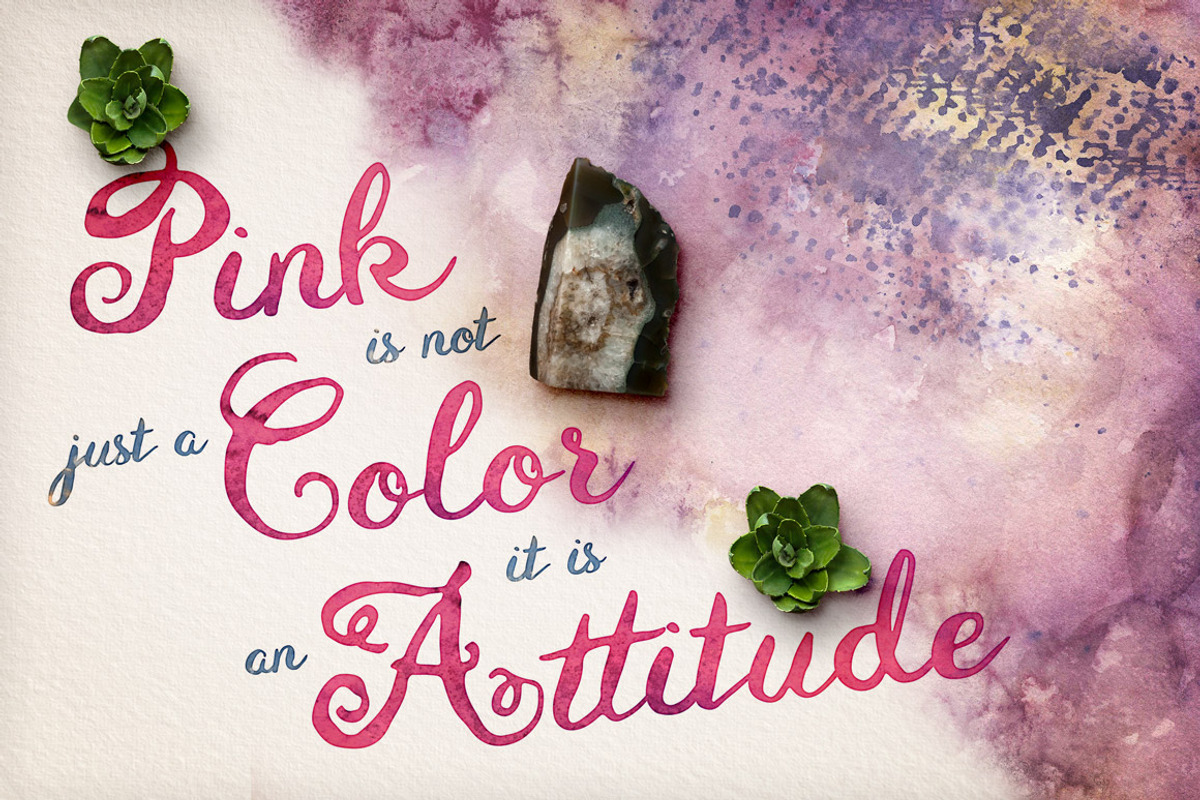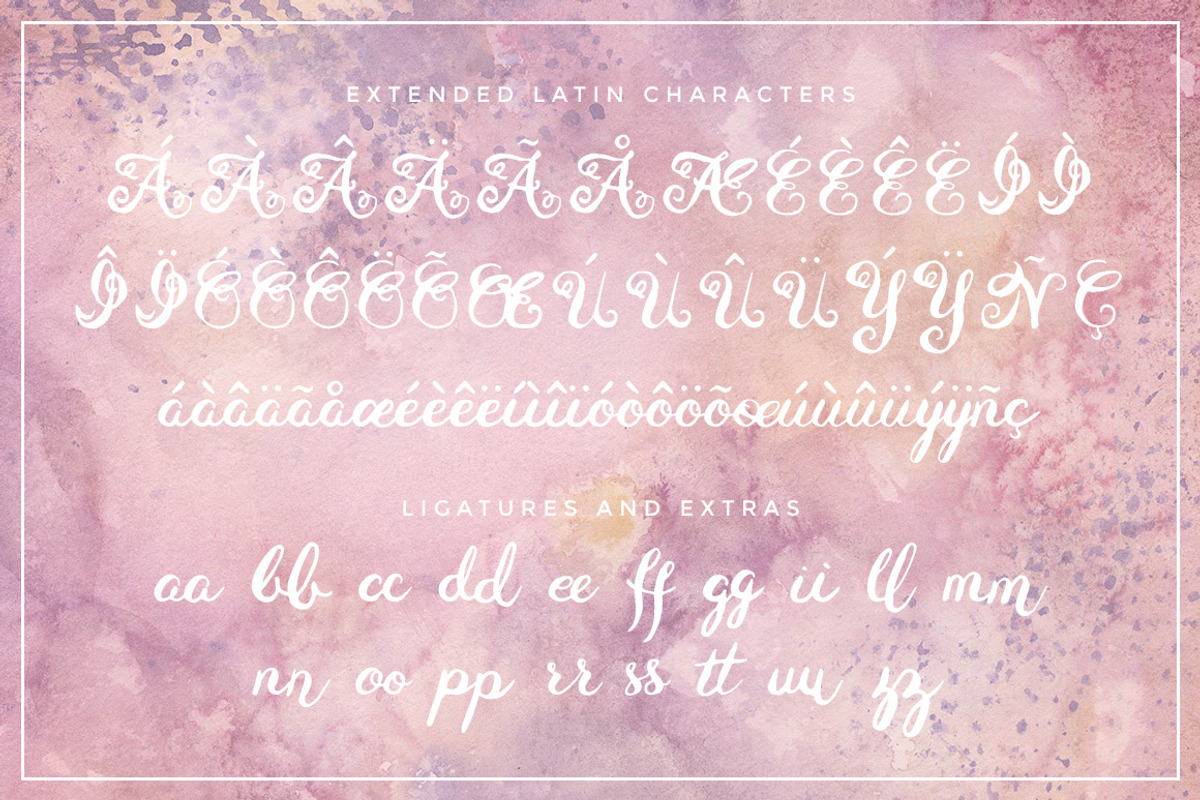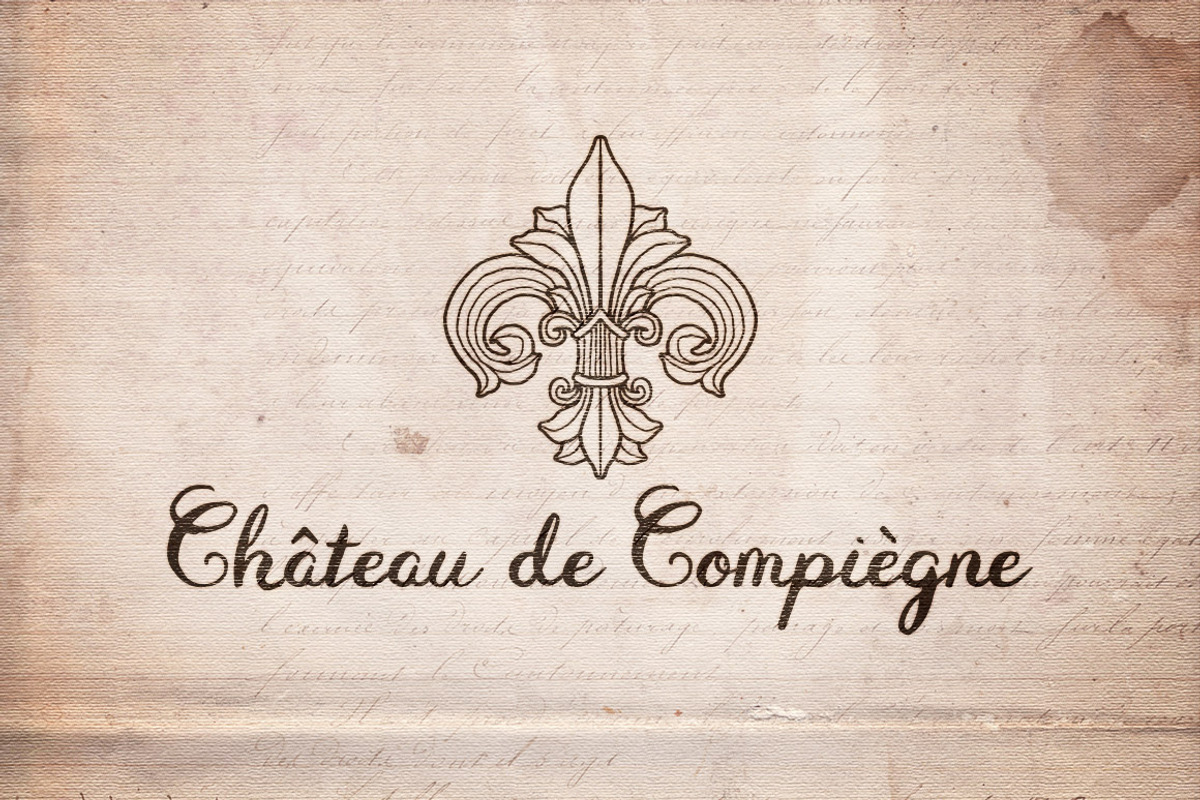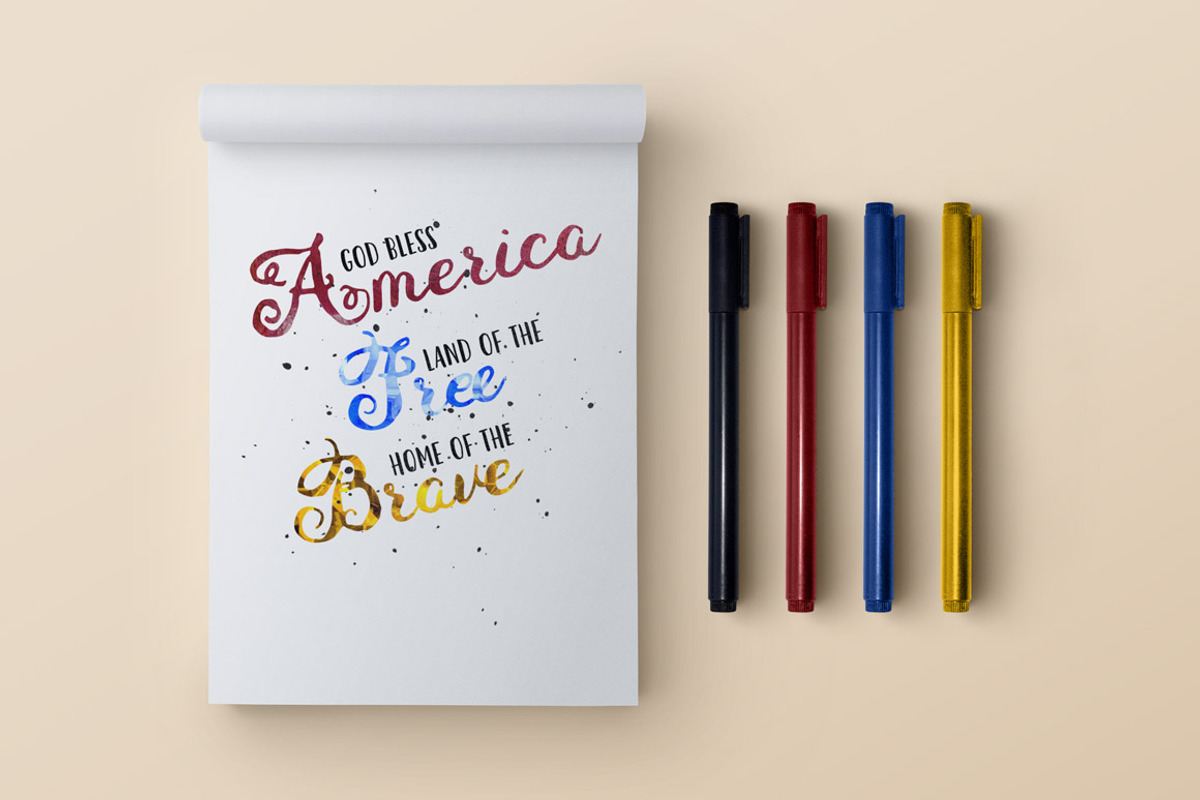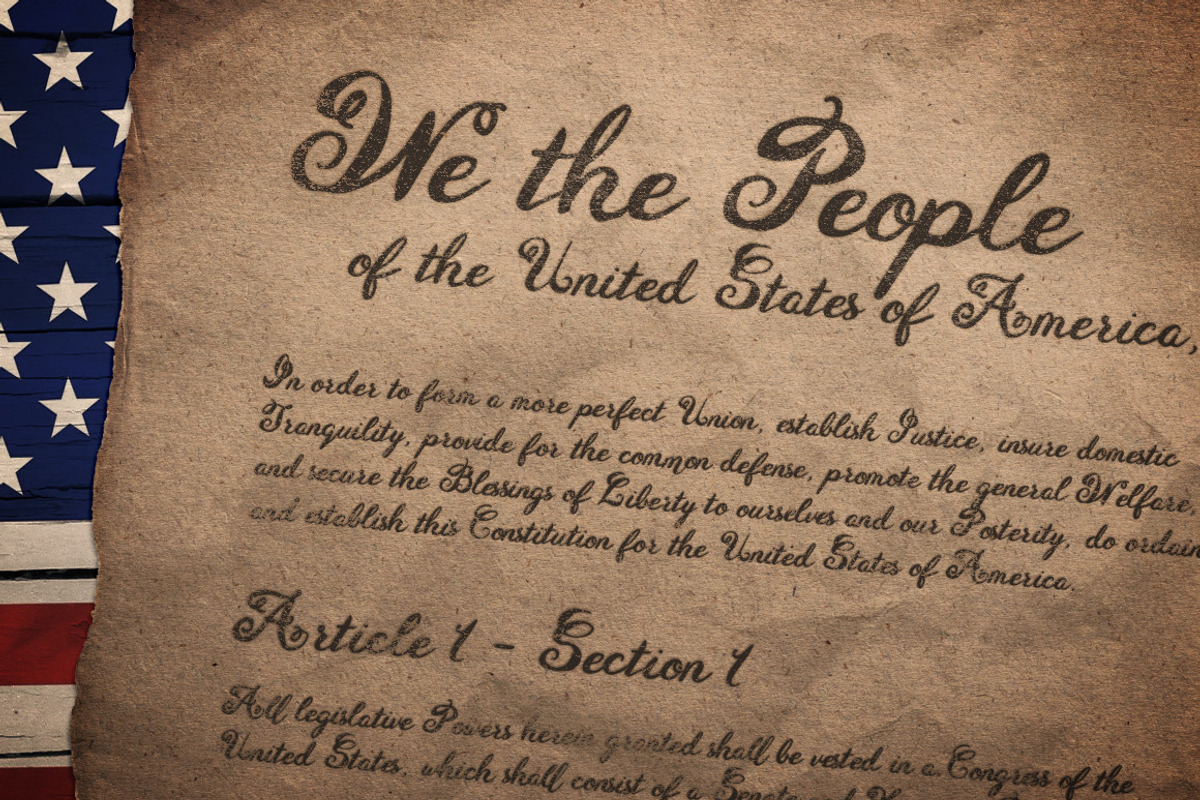
Eiffell Brush Script Font + Extras
Eiffell Brush Script Font + Extras by Design Panoply is a font selected for branding, posters, packaging, typography.
- This font includes standard and extended Latin characters, numbers and symbols, and a selection of ligatures.
- Eiffell Script
Why Eiffell Brush Script Font + Extras is worth a look
Eiffell Brush Script Font + Extras by Design Panoply fits naturally into Branding, posters, packaging, typography.